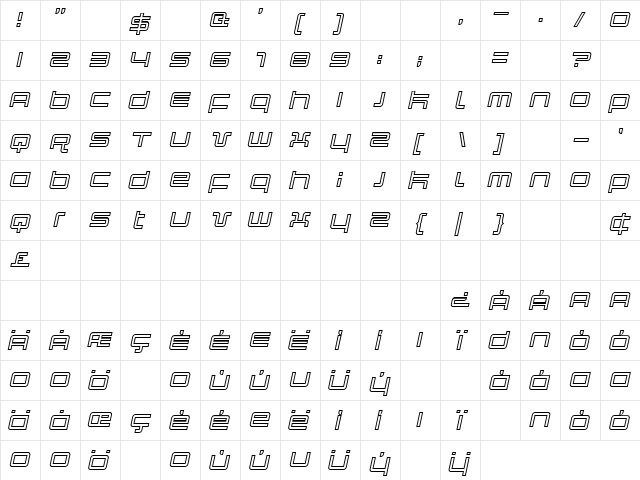
Quark Outline Italic
Design Context for Quark Outline Typeface
Quark Outline is built around its visual character rather than neutral utility — its distinctive forms are designed to make an impression at display sizes. The slanted form adds forward momentum and visual energy.
Font Pairing: Pair with a clean neutral sans-serif for body copy to let Quark Outline's character lead without overwhelming the composition.
Pro Tip: Treat Quark Outline as the centrepiece of your typographic hierarchy. One strong heading set in a decorative face can carry an entire layout.